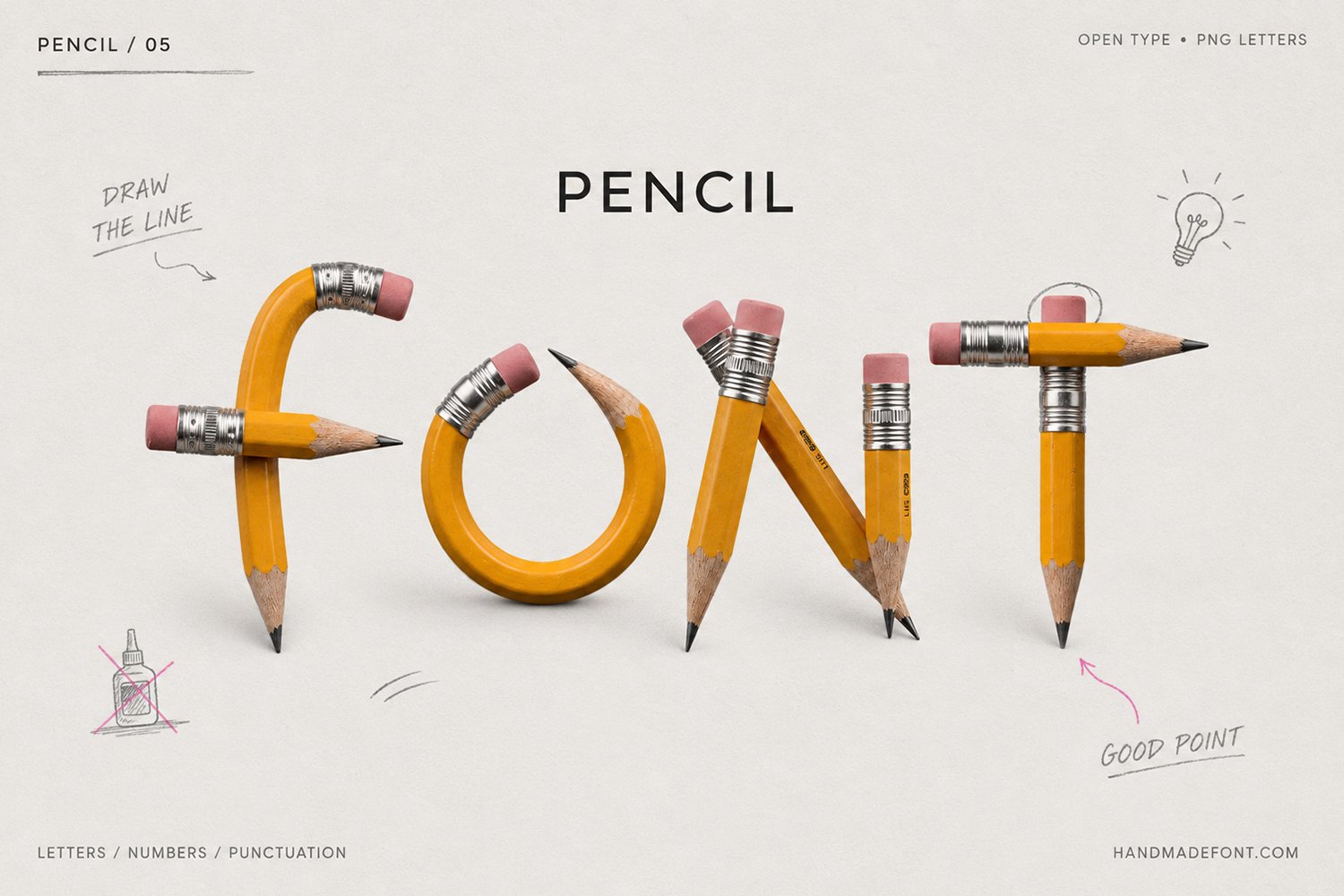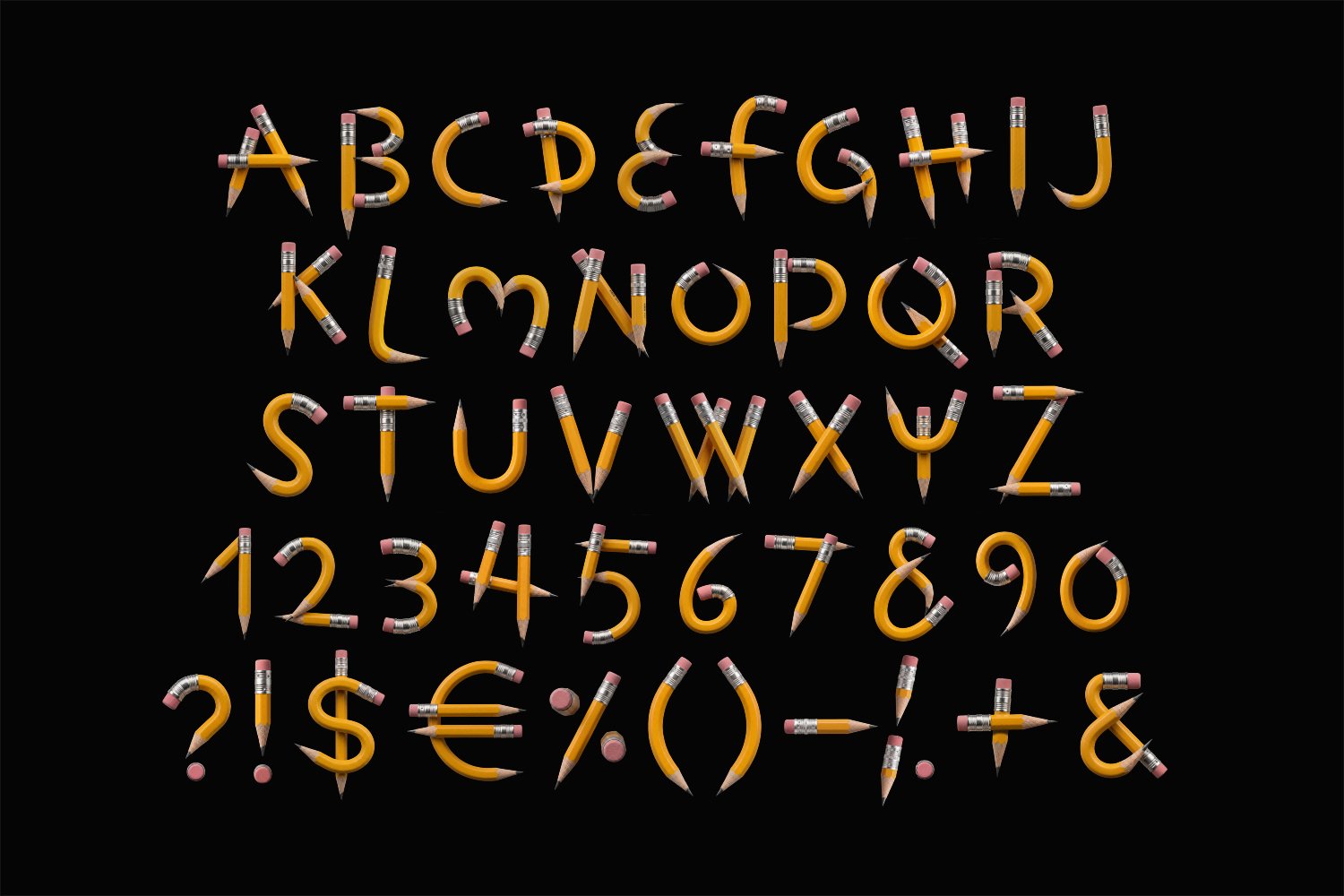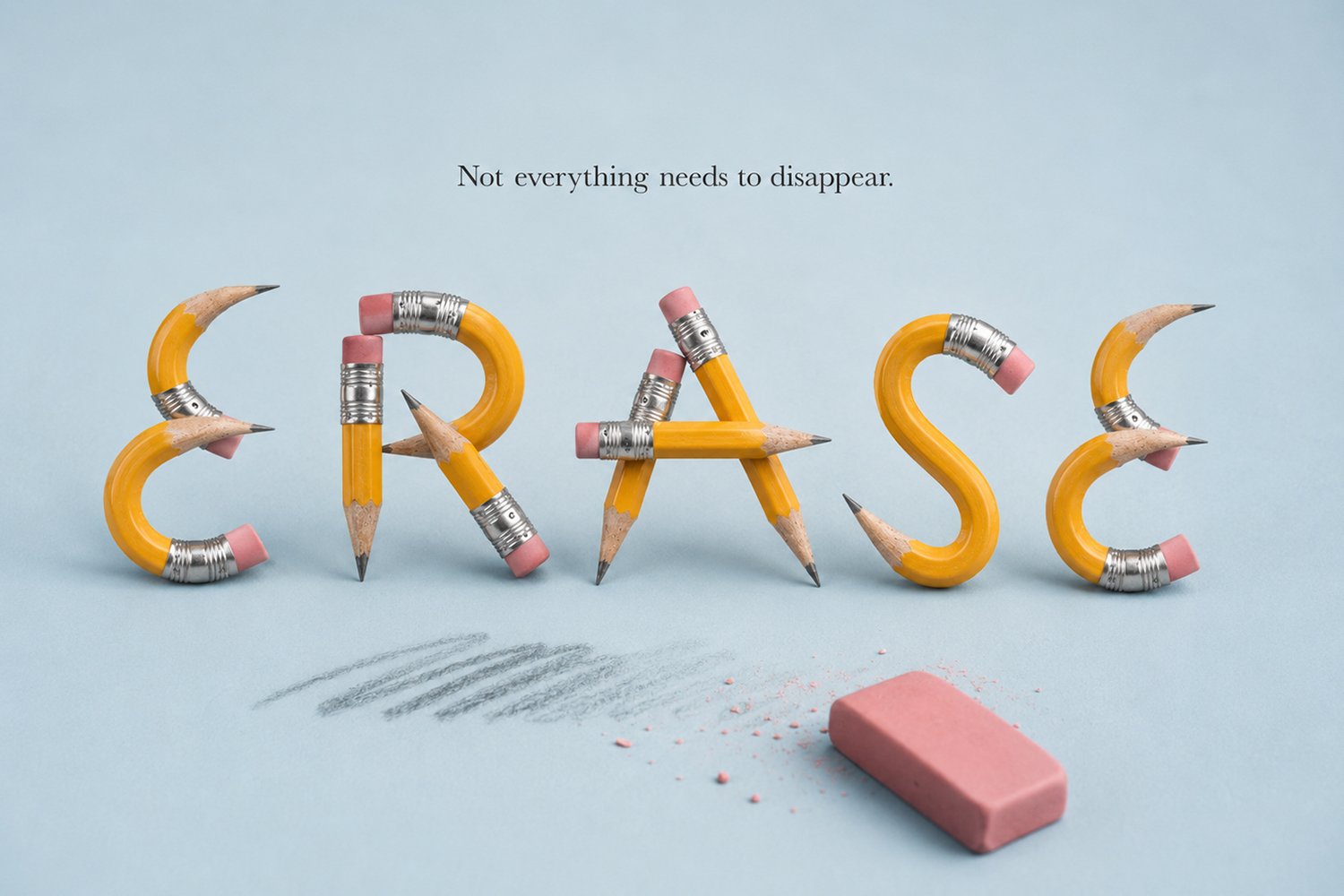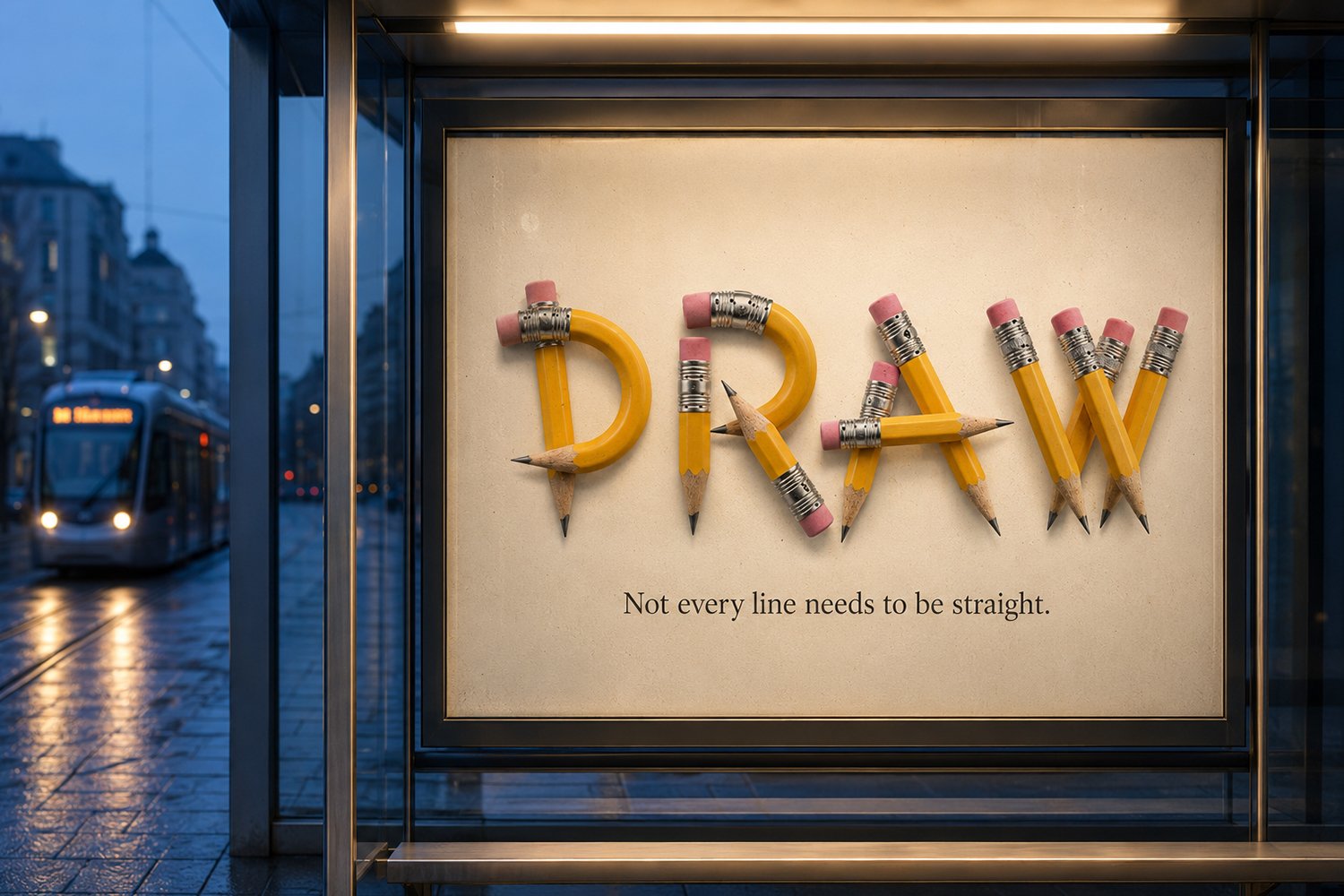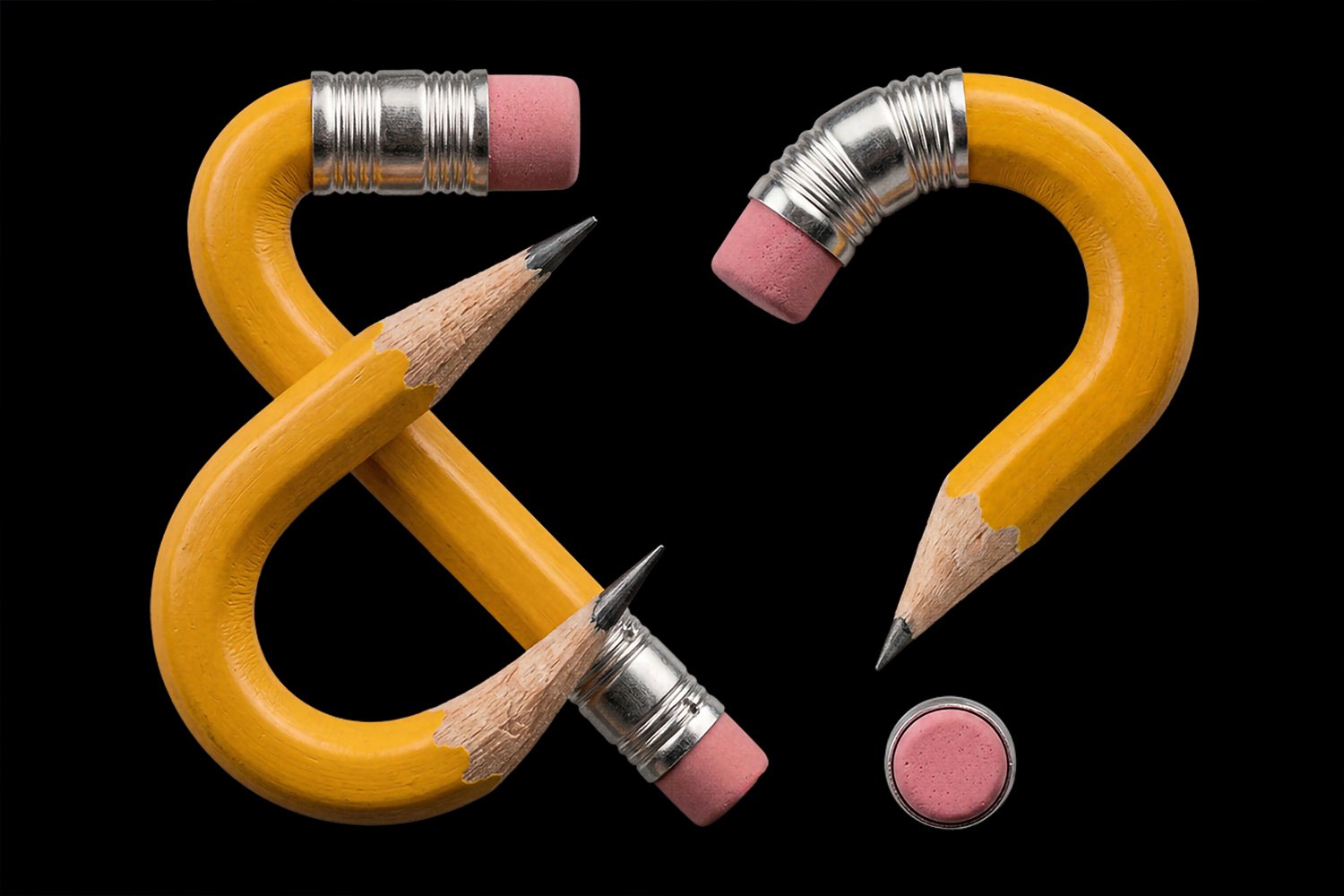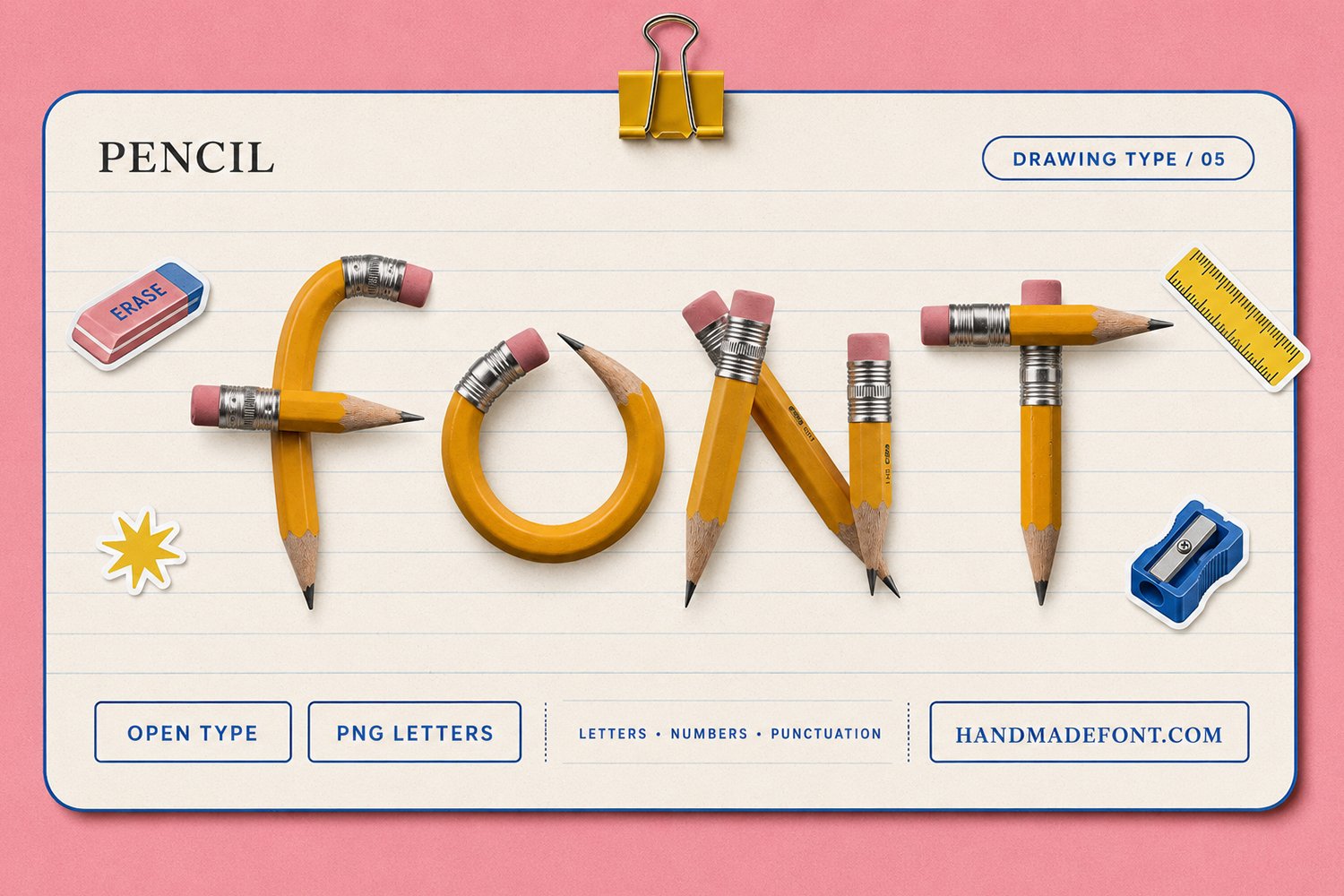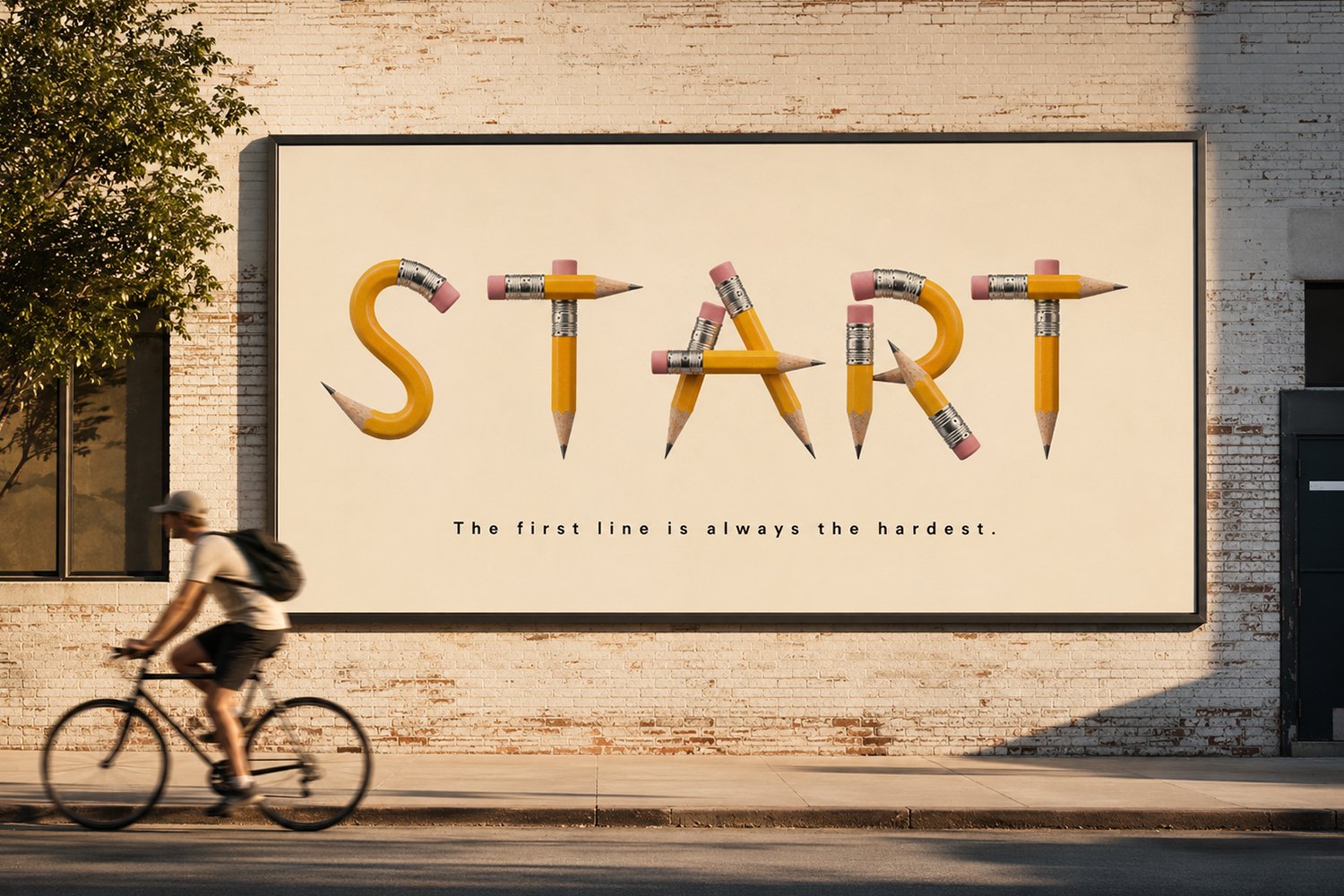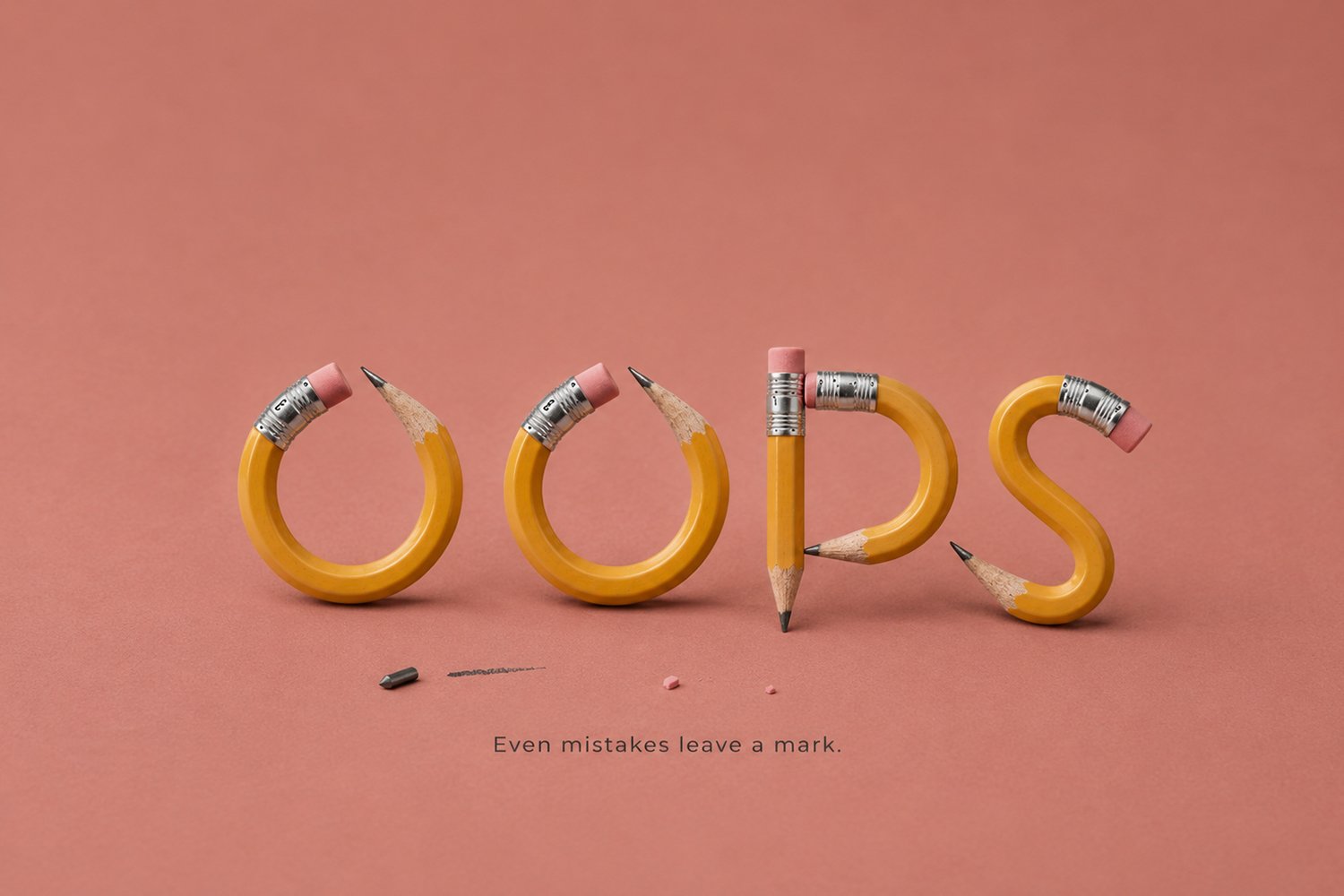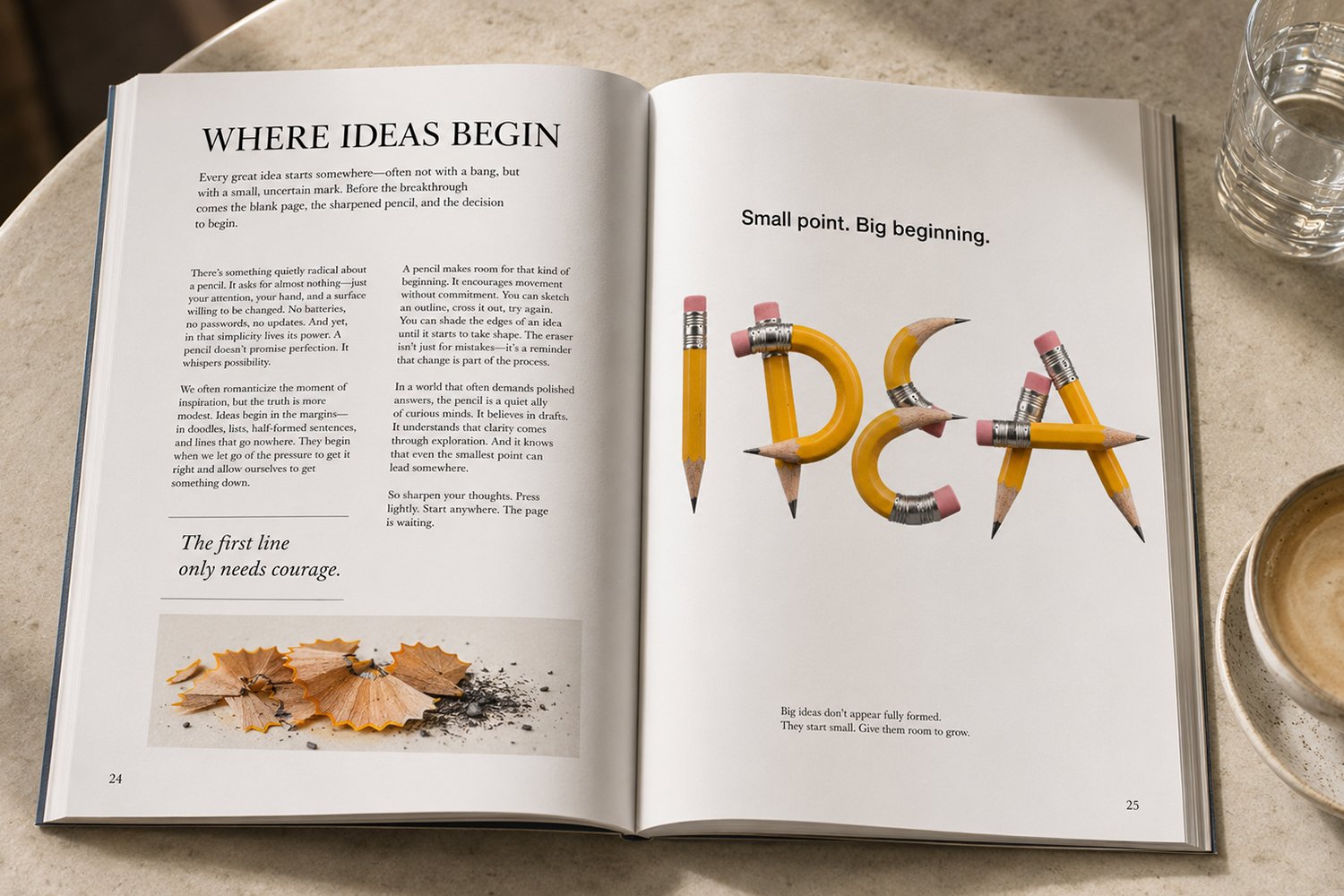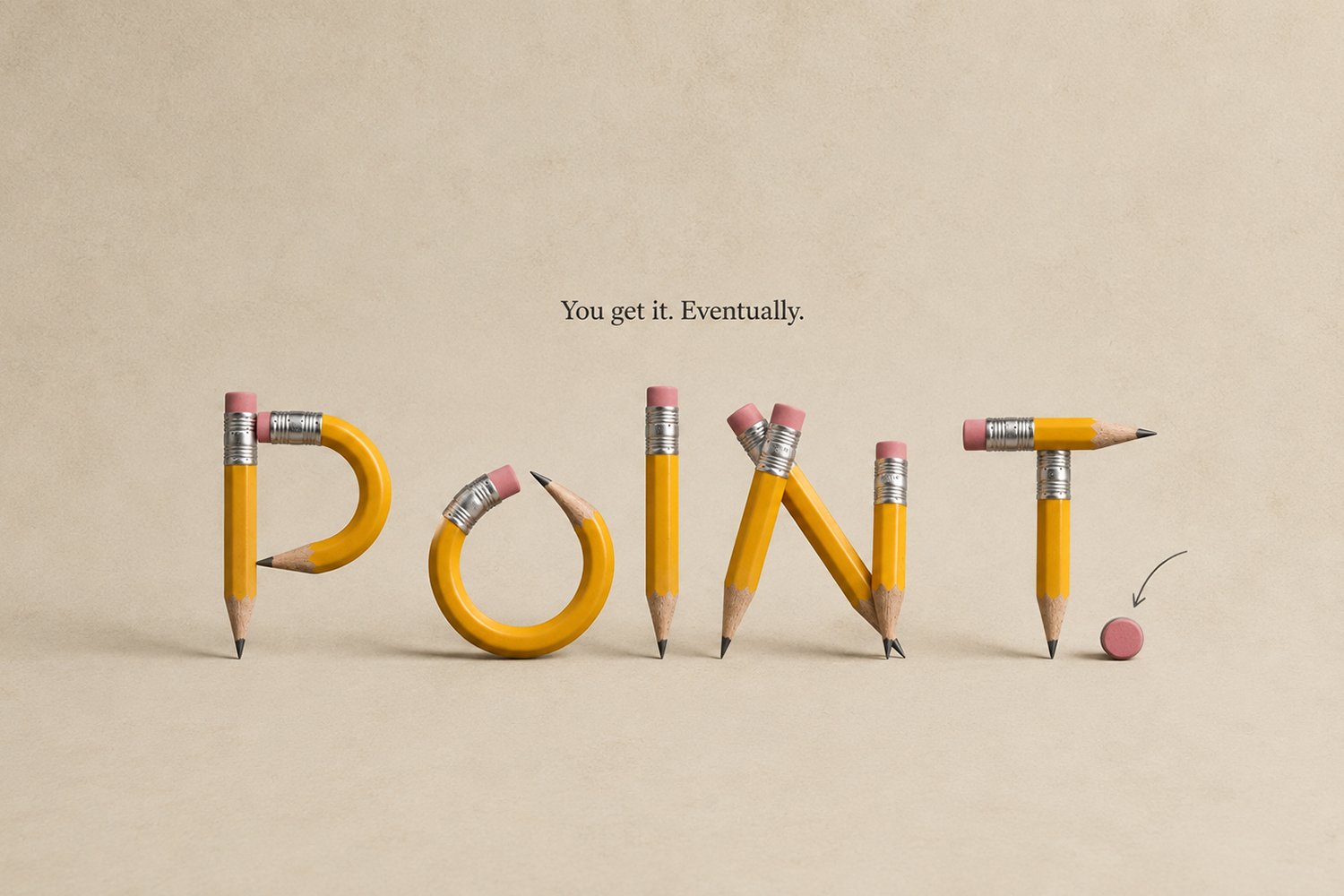
Pencil Font
Pencil Font transforms familiar yellow pencils into a playful, imaginative alphabet with a sharp sense of humor. Every character combines realistic wooden textures, graphite tips, metal ferrules, pink erasers, and surprising curves. The result feels handmade, dimensional, and instantly memorable. Use it for posters, educational projects, packaging, branding, editorial layouts, social media, classroom materials, and creative advertising. The package includes an easy-to-use OTF font for convenient typing, along with every individual letter supplied as a high-resolution PNG file on a transparent background for flexible custom compositions and designs with ease.